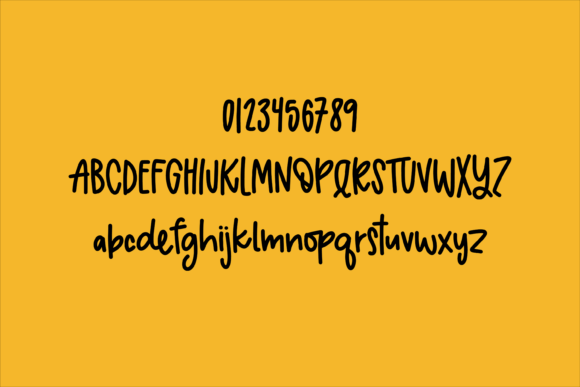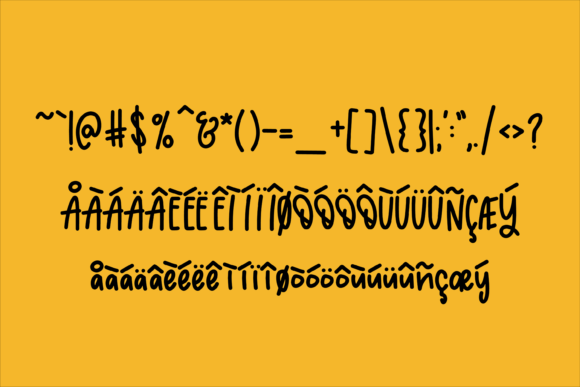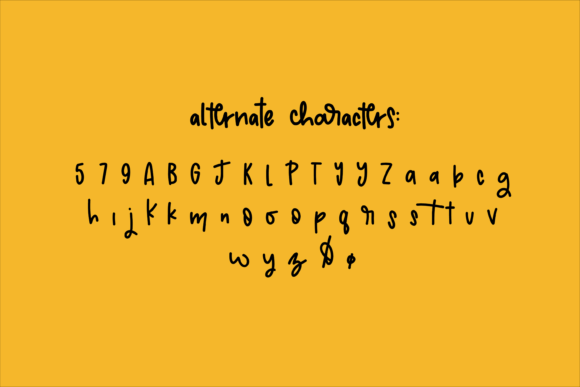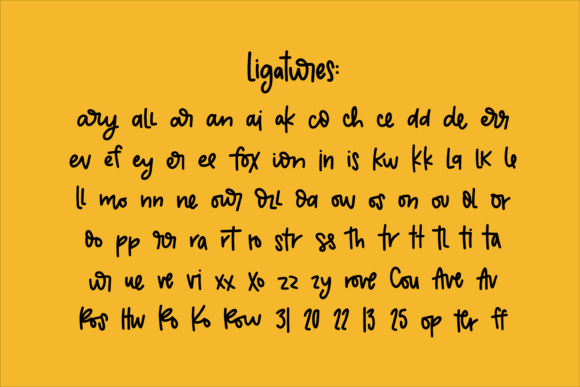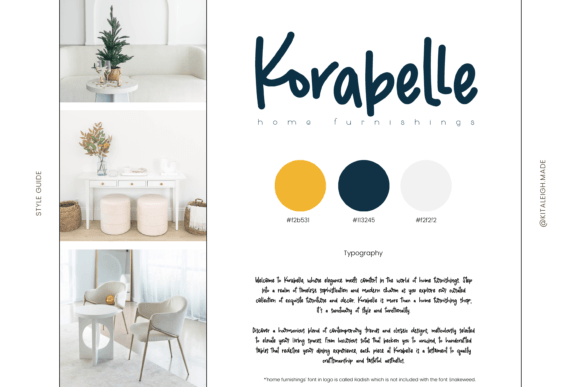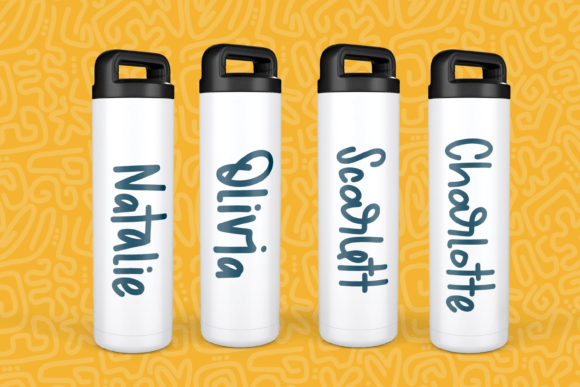
Introduction to Snakeweed Font Font
Fonts play a crucial role in design, and the Snakeweed Font font is a typeface that brings both character and versatility to any project. Whether you’re working on a branding project, a website, or a print design, the Snakeweed Font font offers a unique style that can elevate your work.
“Snakeweed” is a playful and hand-lettered font that exudes personality and versatility.
Perfect for projects needing a touch of whimsy or casual style, this font boasts over 100 ligatures and alternate characters, making it ideal for creating dynamic and custom looks Whether used for branding, logos, invitations, or playful merchandise, Snakeweed’s relaxed and bold letterforms bring a unique charm to any design.
Key Features of Snakeweed Font Font
Why Choose Snakeweed Font Font?
The Snakeweed Font font is more than just a typeface – it’s a design tool that helps you communicate your message with style and clarity. Its unique character set and versatile design make it suitable for a wide range of applications, from elegant invitations to bold headlines.
With its carefully crafted letterforms and balanced proportions, the Snakeweed Font font ensures readability and visual appeal across all mediums.
What makes Snakeweed Font font special?
The Snakeweed Font font stands out with its unique design, exceptional readability, and versatility across various design applications.